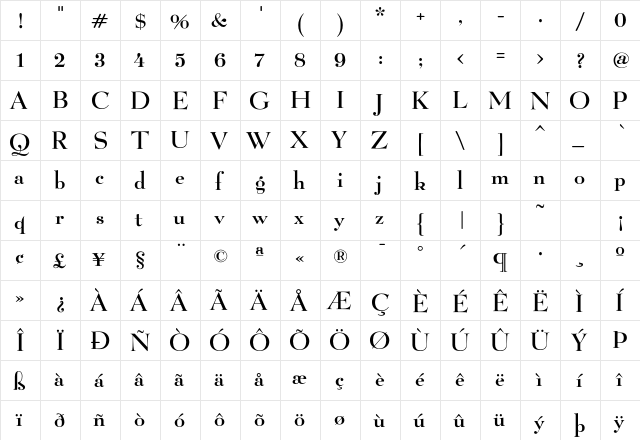
BeLucian FB Demi Regular
Design Context for BeLucian FB Demi Typeface
BeLucian FB Demi offers clean, dependable letterforms without strong stylistic allegiance, making it a practical choice for designers who need flexibility.